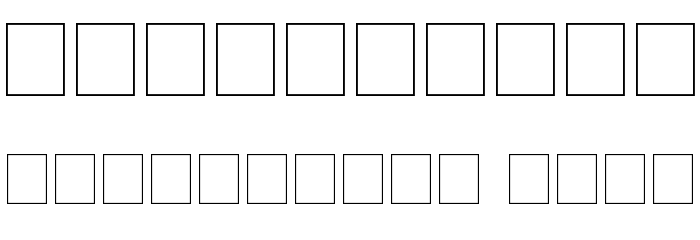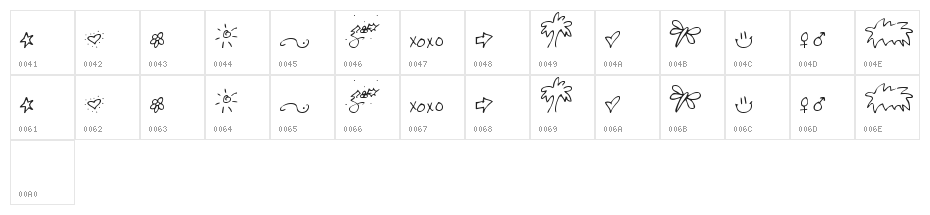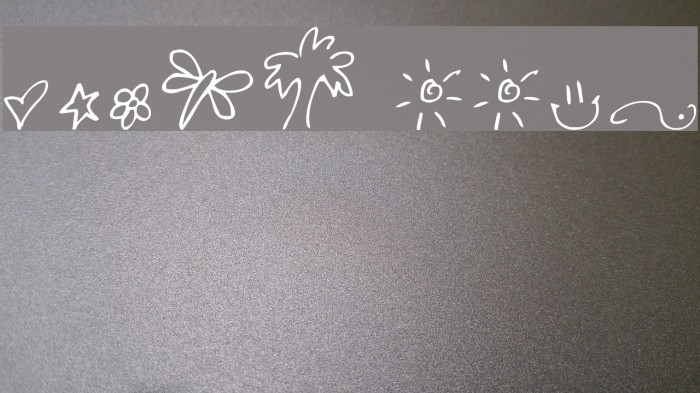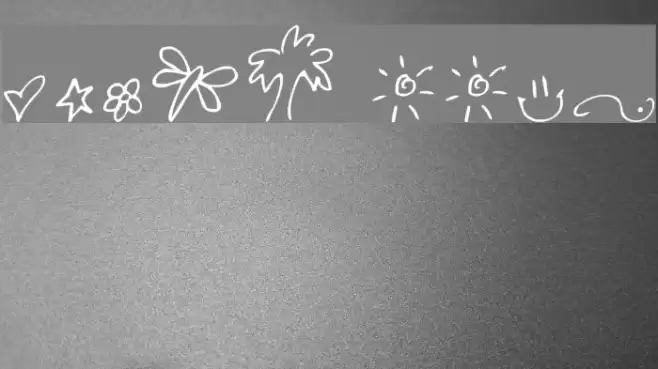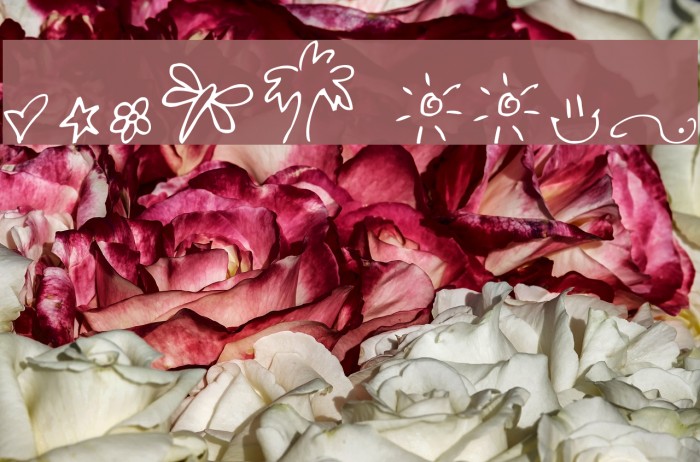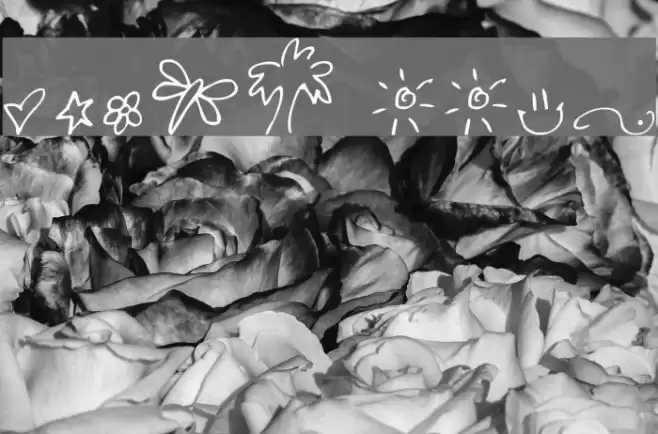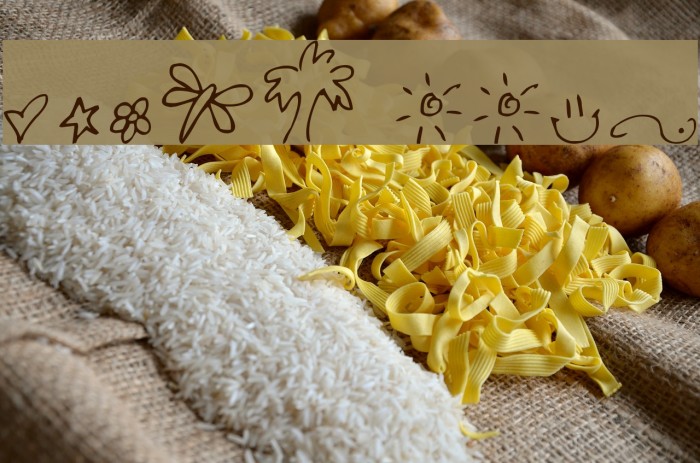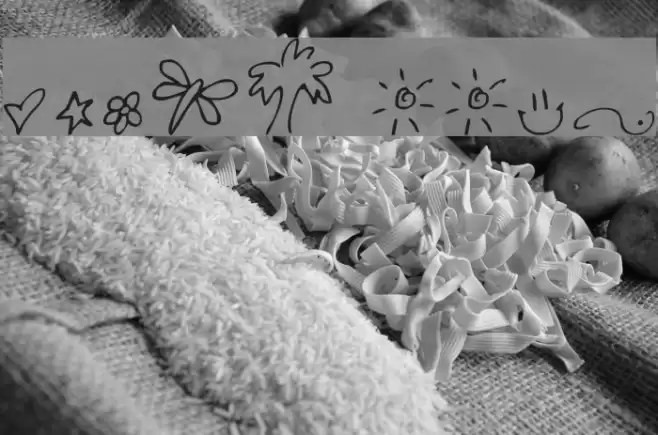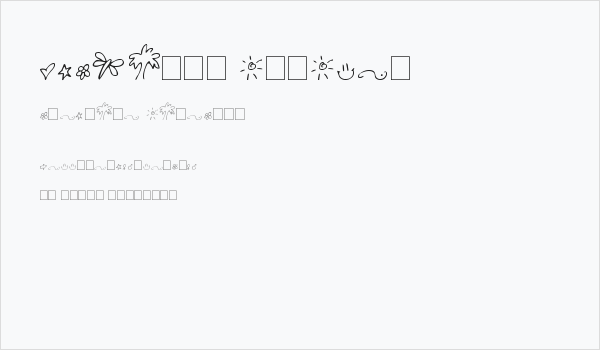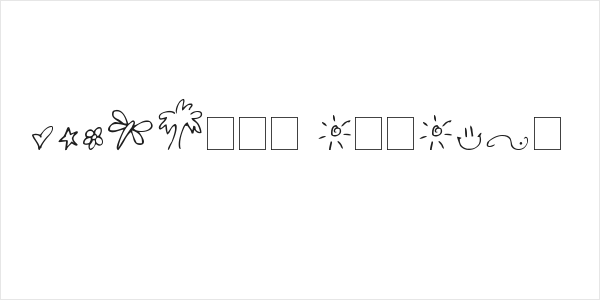
Jacki's Doodles Font
✎ Dingbats
| Caso de uso | Decorative elements, artistic projects |
| Proyectos propuestos | This set of doodles could be used for decorative purposes, such as in scrapbooking, greeting cards, or artistic projects. |